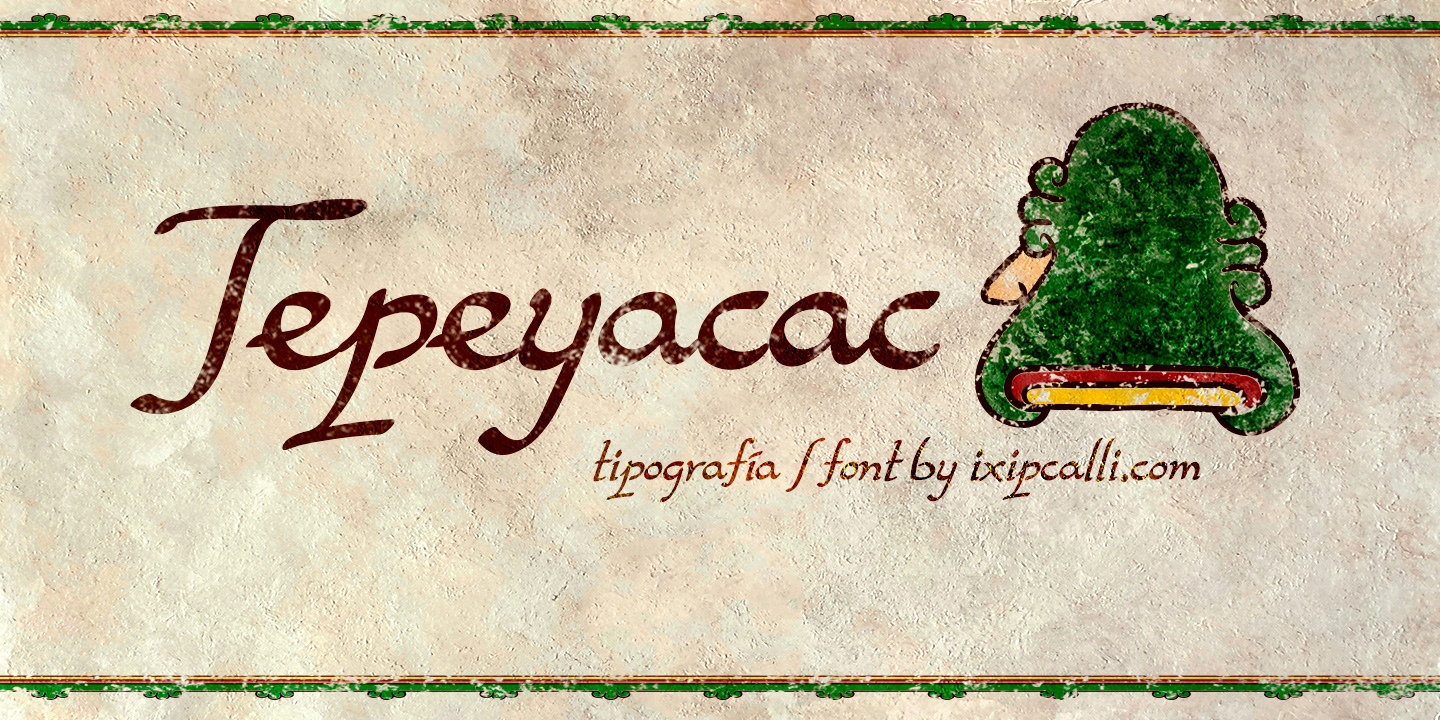
Designed by Francisco Arellano, Tepeyacac is a hand drawn, historical and script font family published by Ixipcalli.
Typography inspired from original text of “Nican Mopohua” for Antonio Valeriano